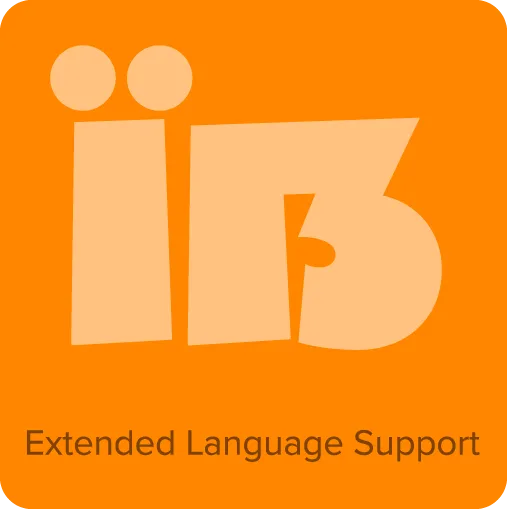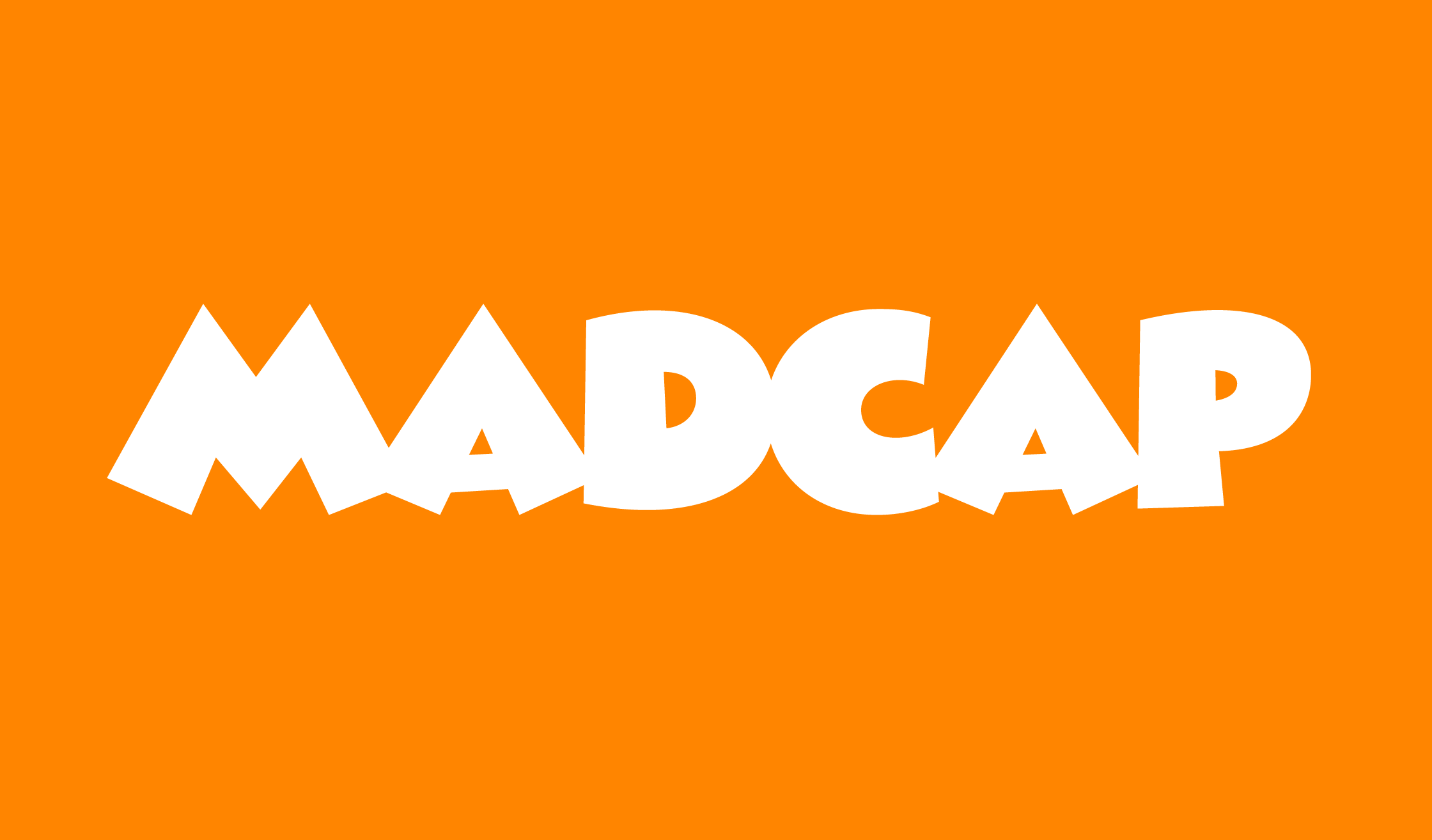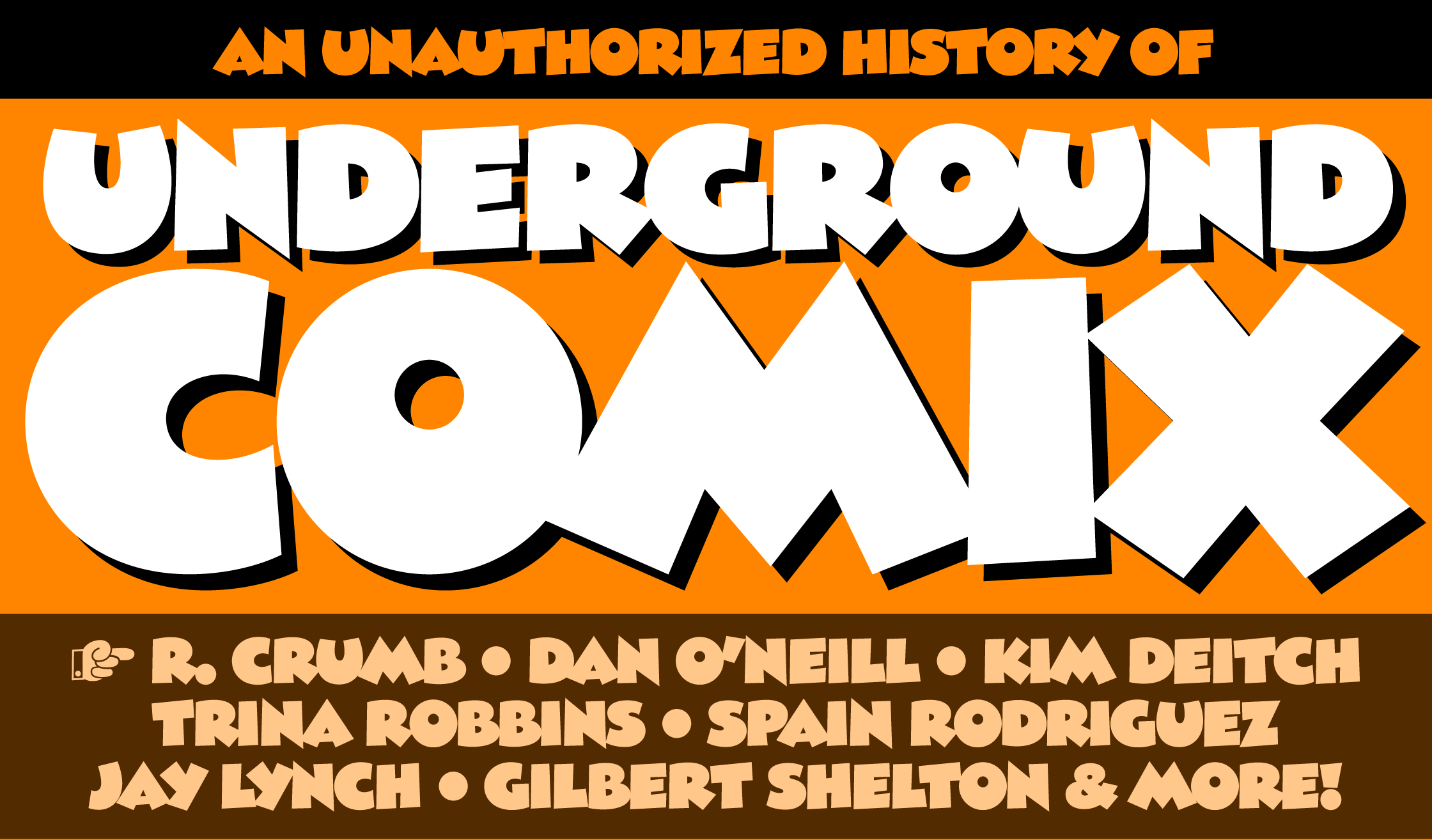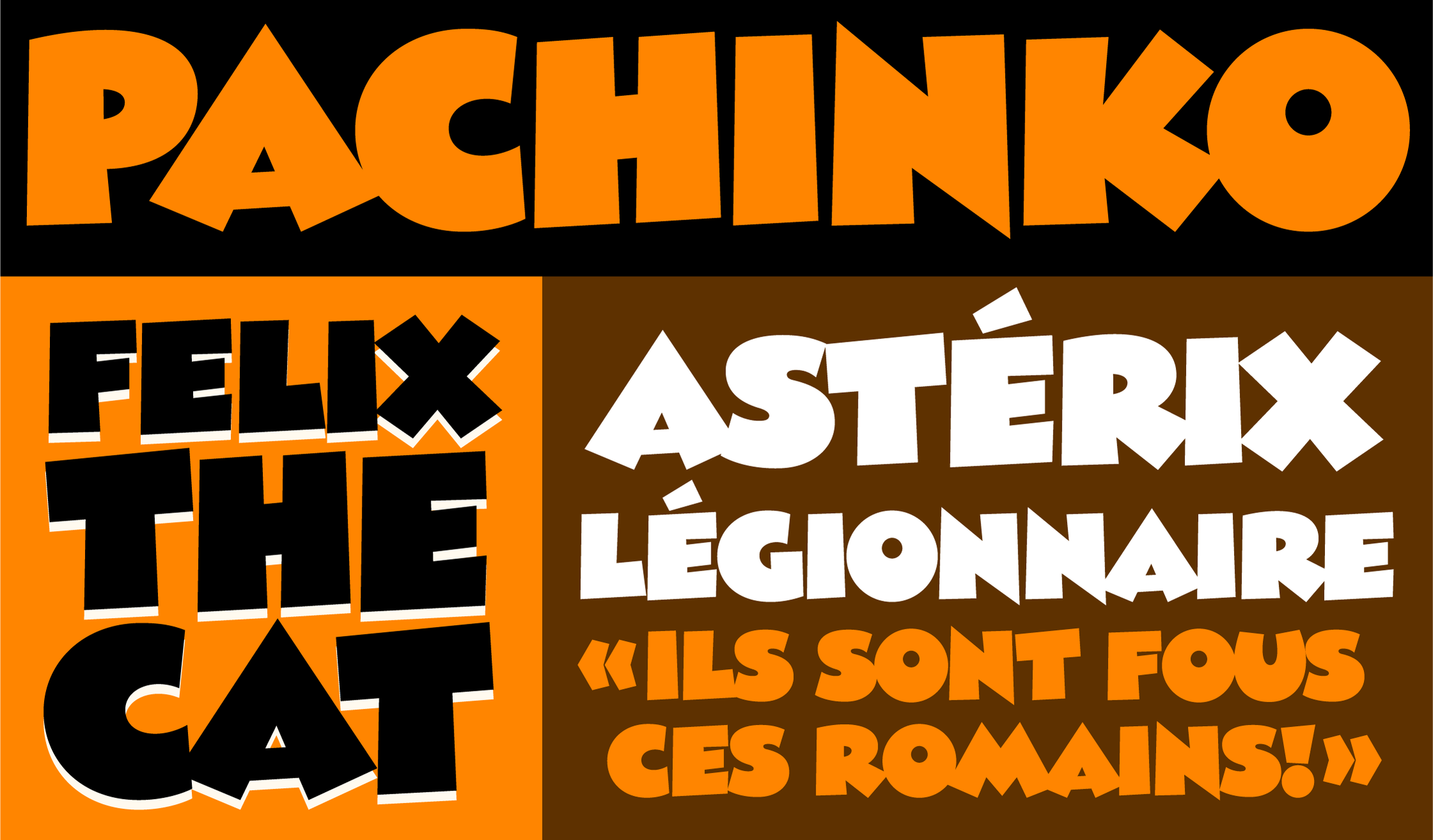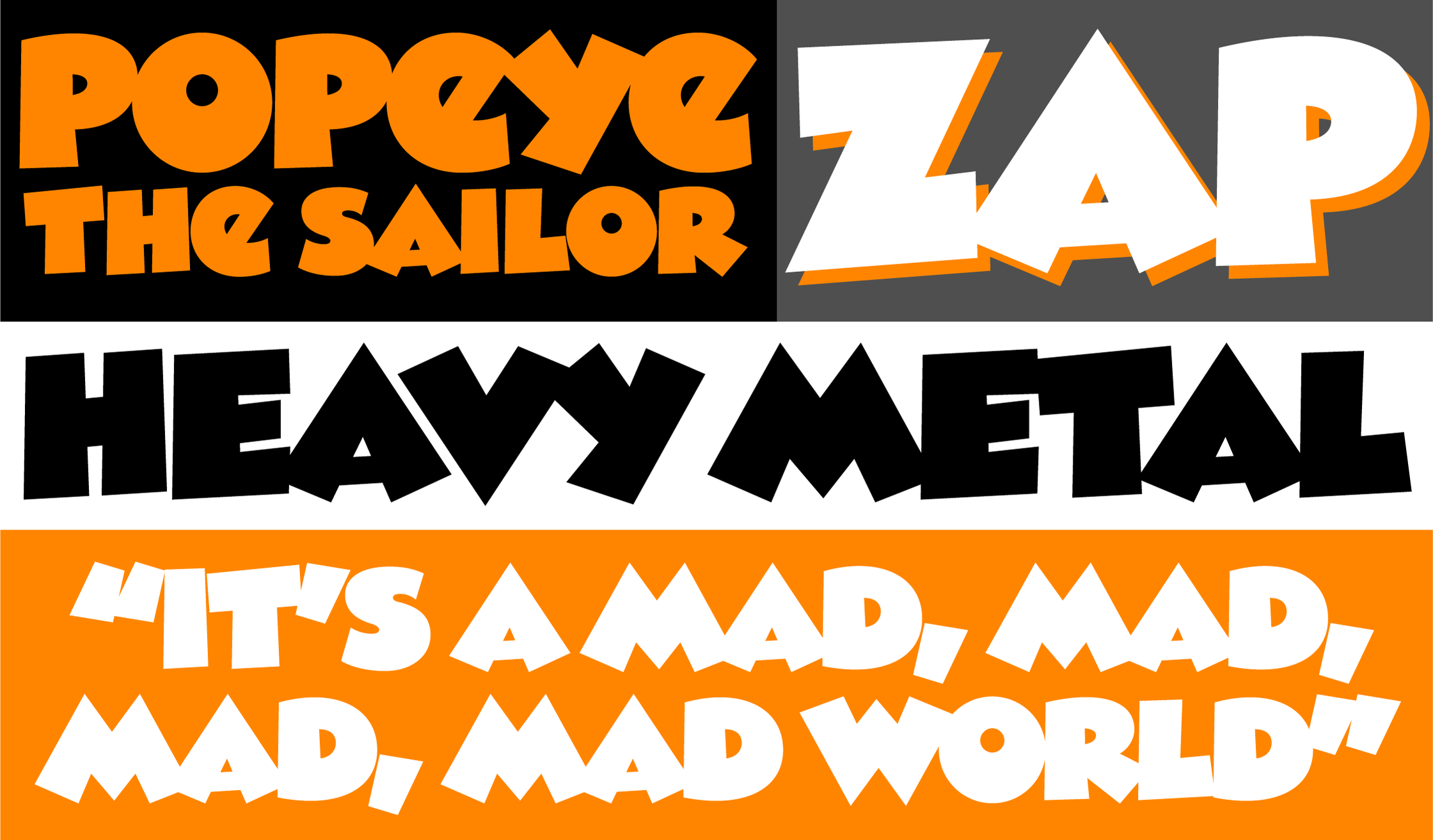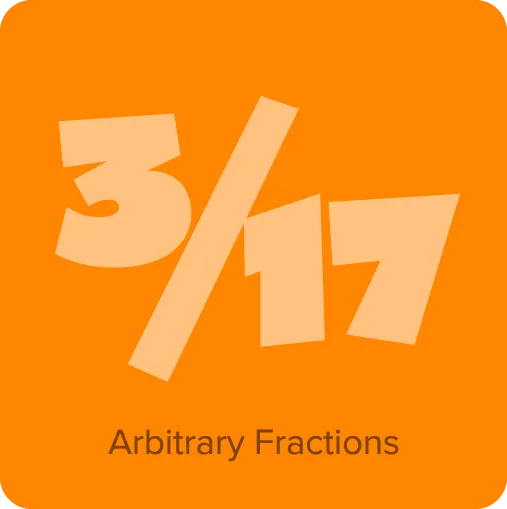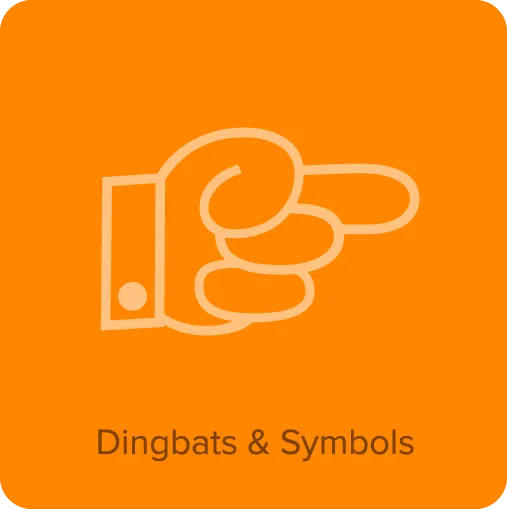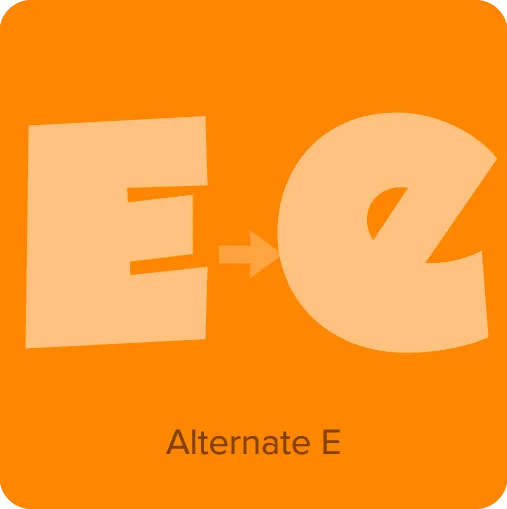
Madcap (2024) has its roots in a style of lettering that its designer, Mark Simonson, used frequently when he was in high school in the early seventies. He was inspired by comic book and greeting card lettering from the sixties. Madcap’s lively appearance comes from its skewed geometry, which avoids anything aligning to a square axis or grid, yet does so with a rhythmic and consistent logic. It’s an all-caps design, and features an alternate lowercase-style “E” and a full set of dingbats.
- Dingbats & symbols.
- Alternate E (lowercase form).
- Arbitrary fractions.
- Extended language support for most Latin-based Western and Central European languages.